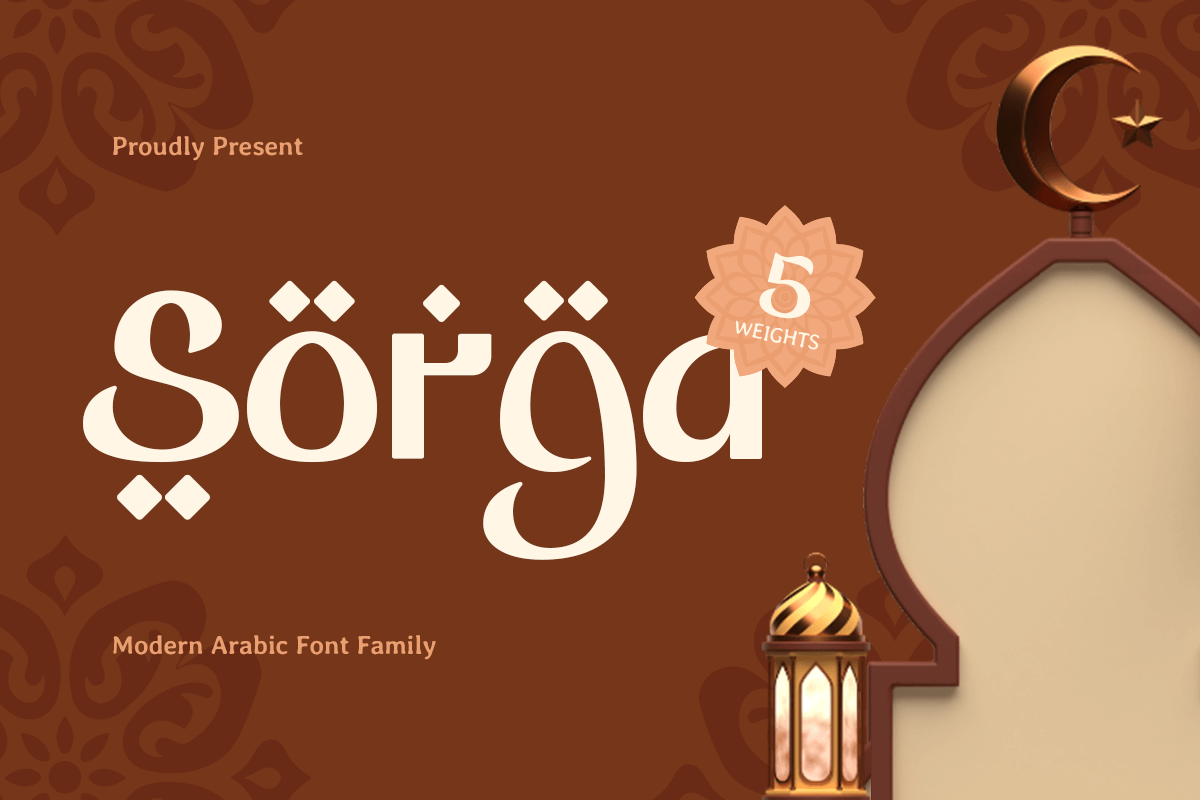
Sorga
-Modern Arabic Font Family
Sorga - Modern Arabic Font Family
Sorga is a contemporary Arabic font family that combines timeless elegance with modern design aesthetics. Perfect for branding, Ramadan campaigns, and creative projects, its clean and balanced characters add sophistication to every layout. Whether used for logos, invitations, or advertisements, Sorga elevates your designs with a polished, upscale touch.
Drawing inspiration from traditional Arabic calligraphy and modern typography trends, Sorga offers versatility and grace for both digital and print media. Its multiple weights and styles ensure compatibility across various projects, from luxurious product packaging to sleek web designs. Sorga embodies culture and creativity, making it an essential choice for modern designers.
Unlock the potential of your designs with Sorga, a font family crafted for those who seek to blend tradition and innovation seamlessly. This font family is the ultimate tool for creating impactful and elegant visual communications.
Sorga Modern Arabic Font Family Features:
• Multiple Weights for Versatile Design Needs
• Elegant and Balanced Arabic Characters
• Punctuation, Numbers, and Symbols
• Uppercase and Lowercase
• Opentype Features
Multilingual Characters available for:
Afrikaans, Albanian, Asu, Basque, Bemba, Bena, Breton, Chiga, Cornish, Dutch, English, Estonian, Filipino, Finnish, Friulian, Galician, German, Gusii, Indonesian, Irish, Italian, Kabuverdianu, Kalenjin, Kinyarwanda, Luo, Luxembourgish, Luyia, Machame, Makhuwa-Meetto, Makonde, Malagasy, Manx, Morisyen, North Ndebele, Nyankole, Oromo, Portuguese, Quechua, Romansh, Rombo, Rundi, Rwa, Samburu, Sango, Sangu, Scottish Gaelic, Sena, Shambala, Shona, Soga, Somali, Spanish, Swahili, Swedish, Swiss.
Features
• Uppercase & Lowercase
• Number & Punctuation
• Opentype Features
• PUA Encode
• Multilingual Language
• Alternate Characters
• Ligature Collections
Category
• Sans Serif
• Display
Styles
• Thin
• Regular
• Light
• Bold
• Black